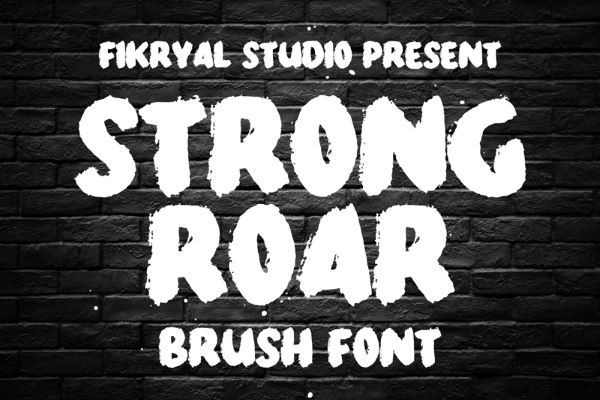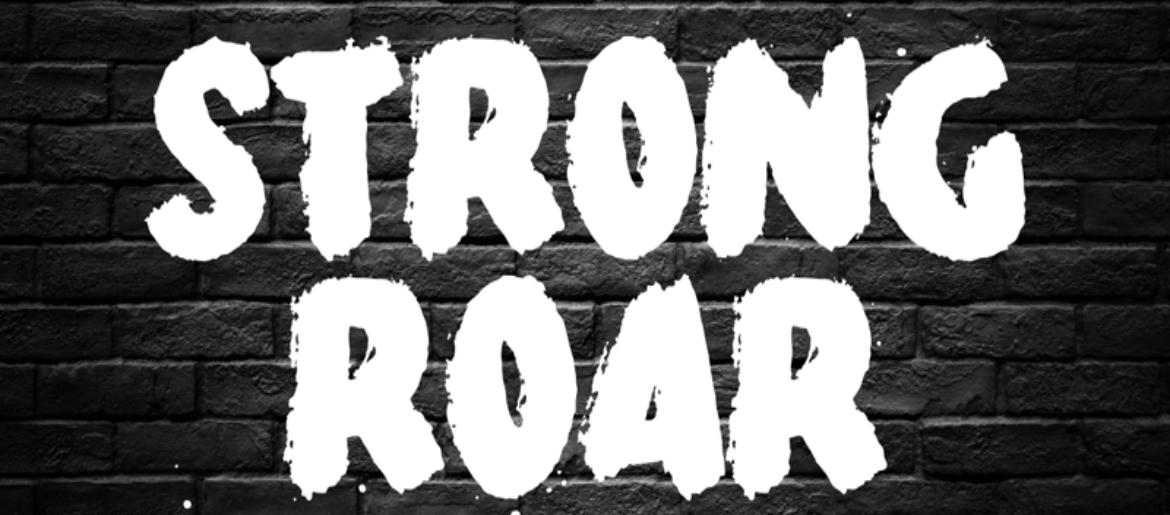
Strong Roar Font
Strong Roar by Fikryal Studio is a brush script that fully justifies its name — the letterforms are broad, expressive, and loud in the best typographic sense. With 418 glyphs, it’s the most glyph-rich in Fikryal Studio’s recent brush script series, offering genuine alternate character depth alongside its core bold energy. That size and weight make it a commanding presence on any canvas: sports branding, music festival posters, gym and fitness marketing, bold editorial headlines, or any design context where the typography needs to arrive with force and hold its ground. Free for personal use.